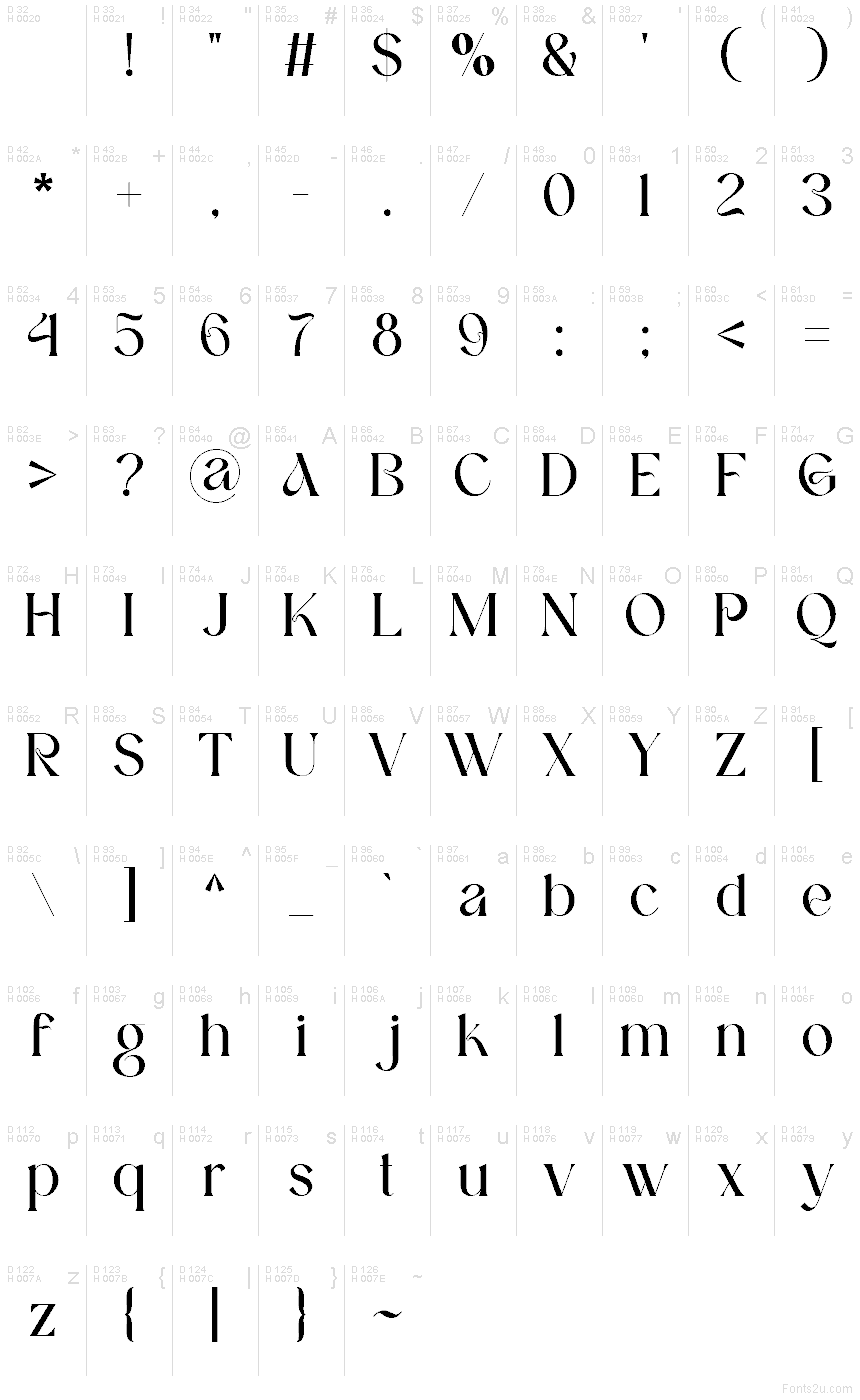
Belnest
Belnest font by Ermedia Studio is a free vintage serif font. It leans into dramatic contrast and sculpted curves—thick strokes pour into hairline thins, while crisp, tapered serifs leave little “inked” echoes at the edges. The result feels luxe and timeworn at once, like a hand-pressed headline with a modern polish.
Using Belnest, headlines hold the room: boutique branding, wine or coffee packaging, editorial covers, statement posters, book jackets, and elegant invitations all benefit from its rich rhythm and confident stance. This free font shines when set large with a touch of breathing room; pair it with a quiet sans for body copy to let the vintage warmth do the talking.